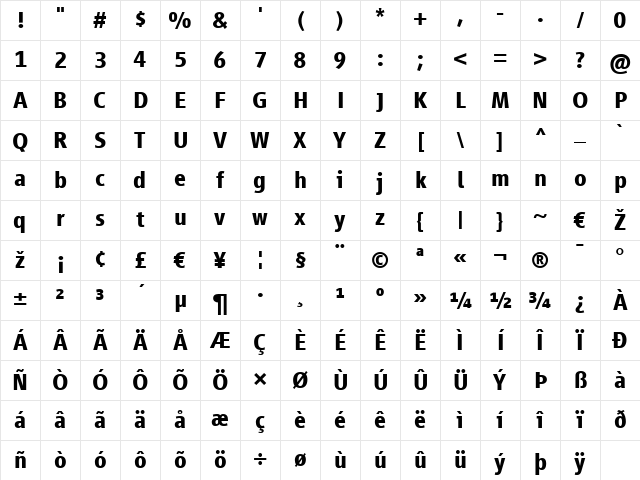
Vialog LT Regular Bold
Designer: Werner Schneider
Design Context for Vialog LT Regular
Vialog LT Regular is a composed and adaptable typeface that performs quietly and consistently across a wide range of design contexts. Its bold stroke weight gives it real presence on the page.